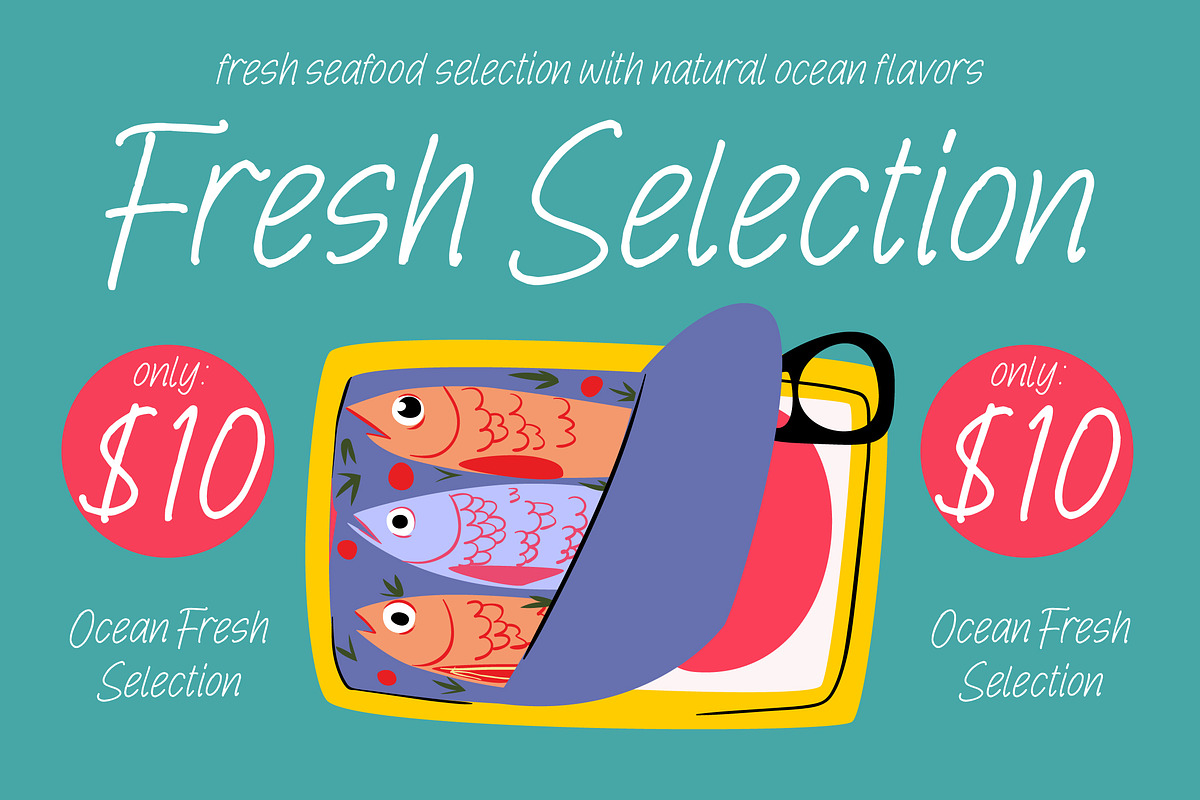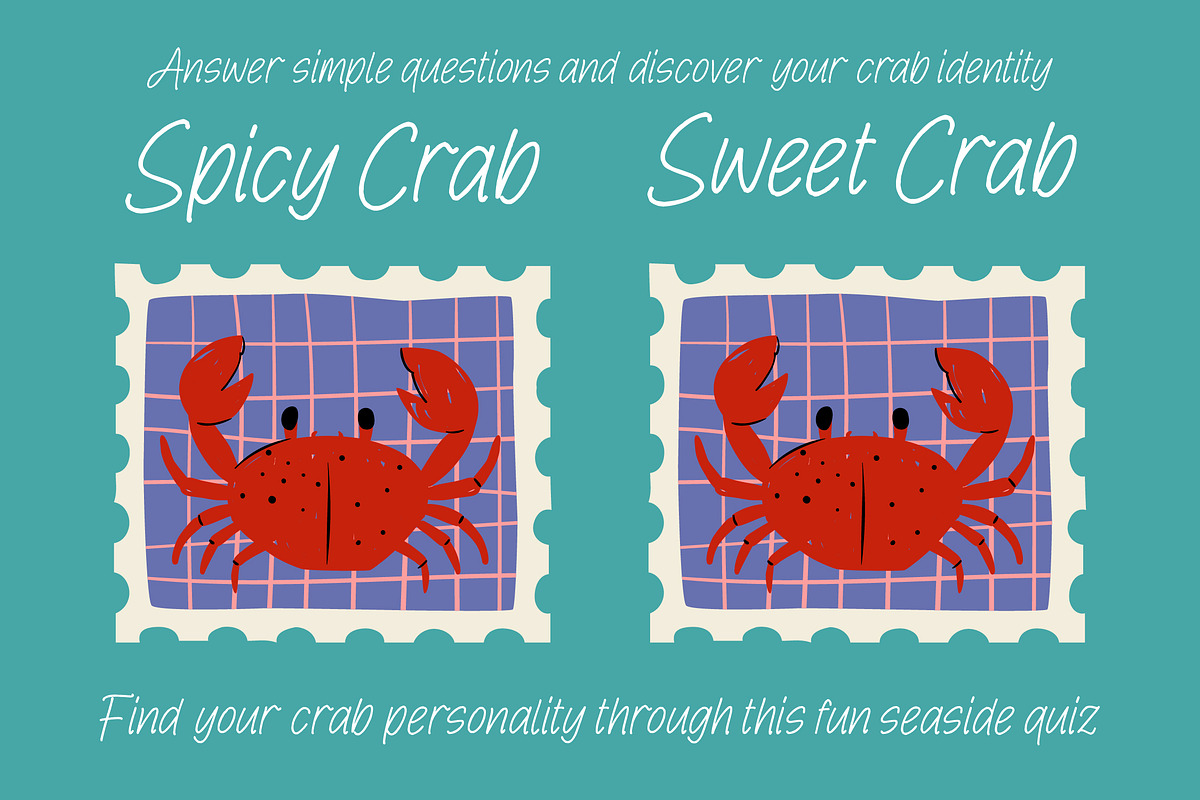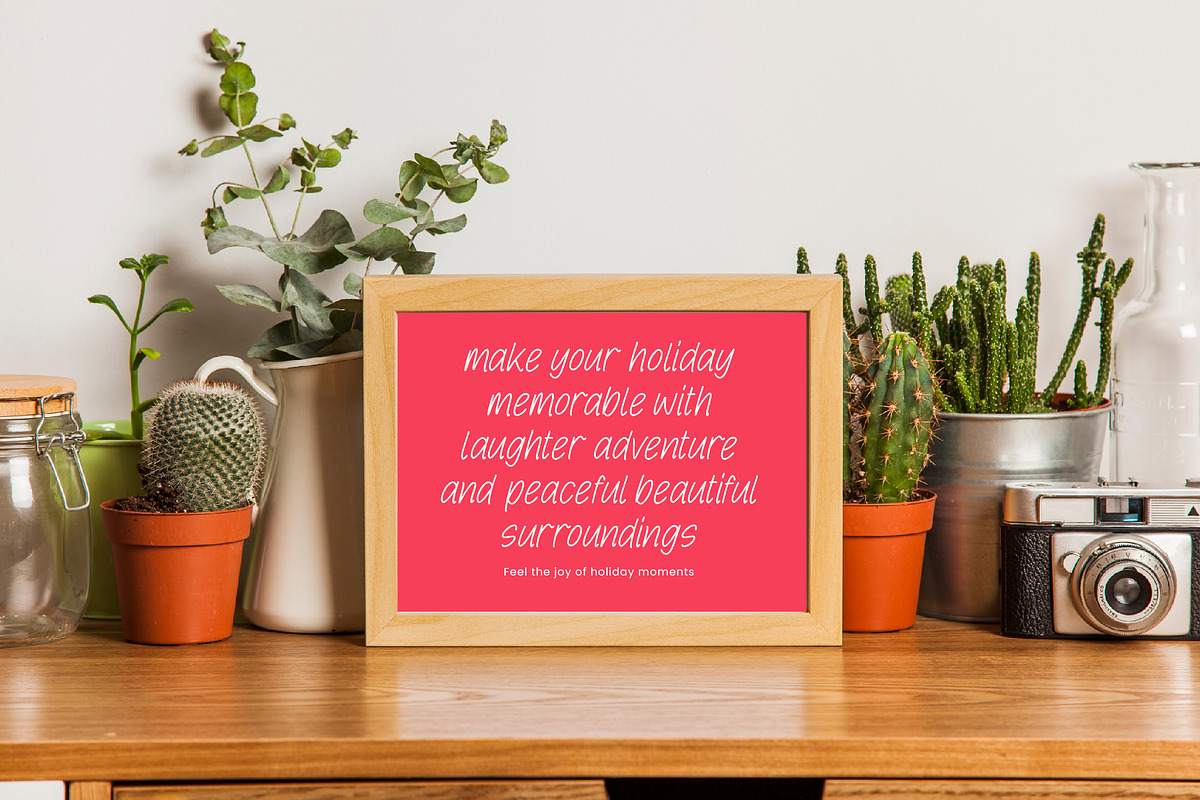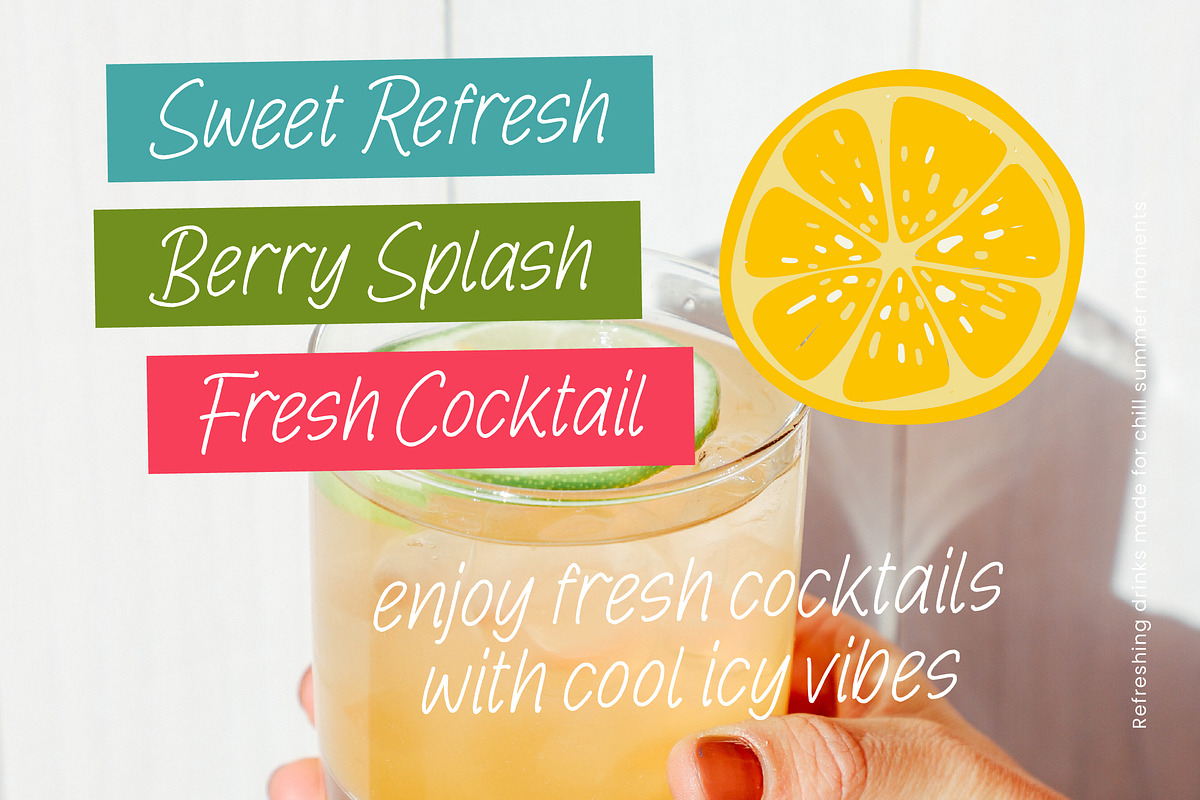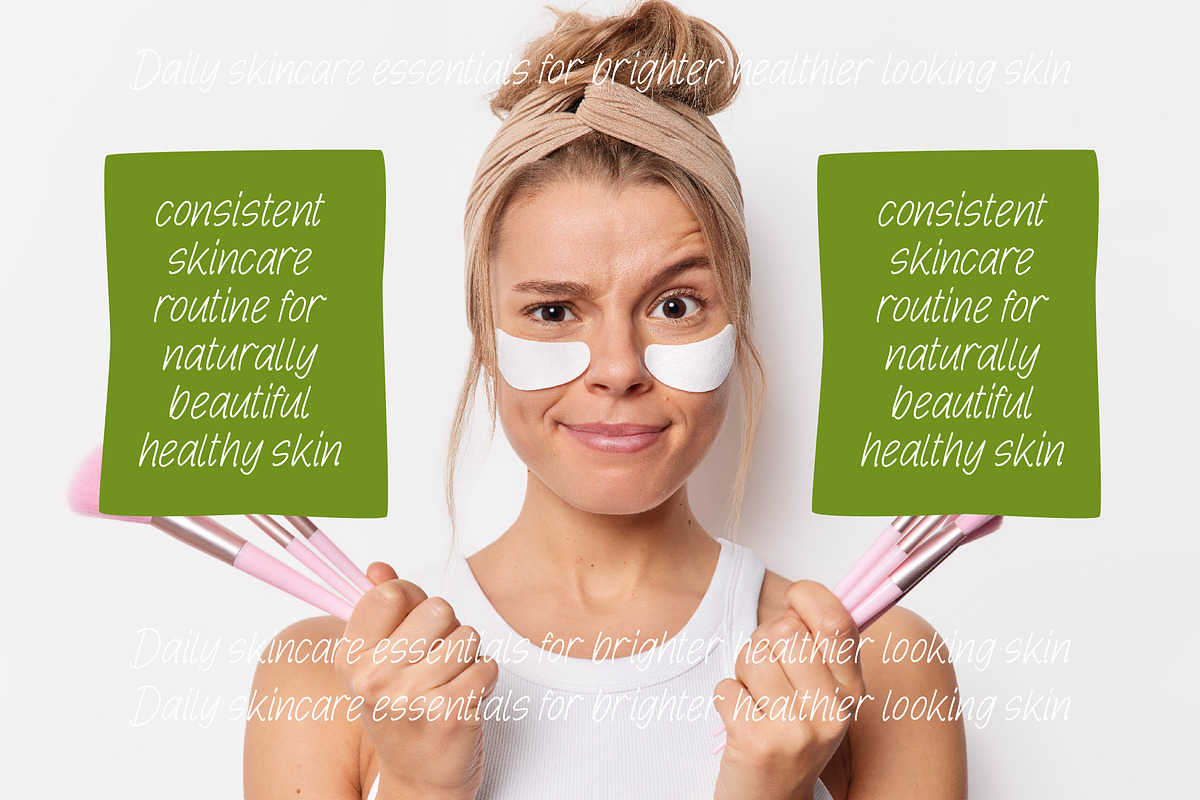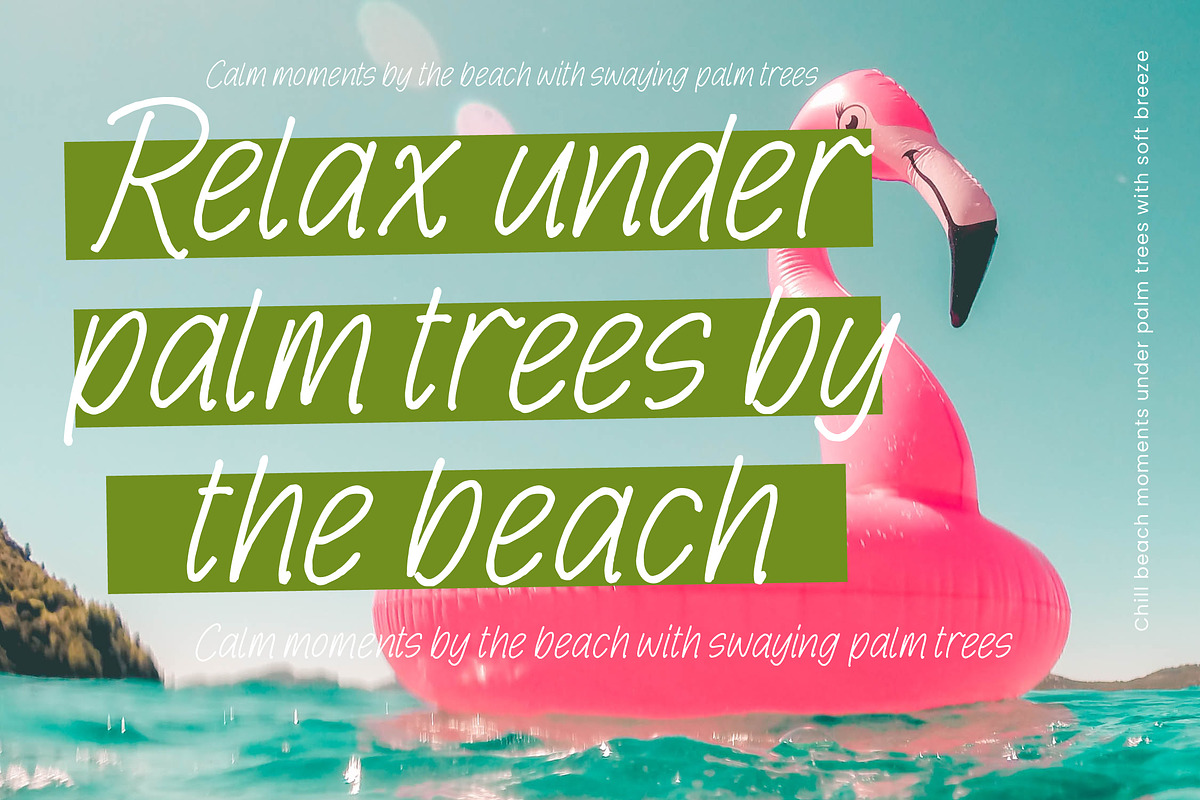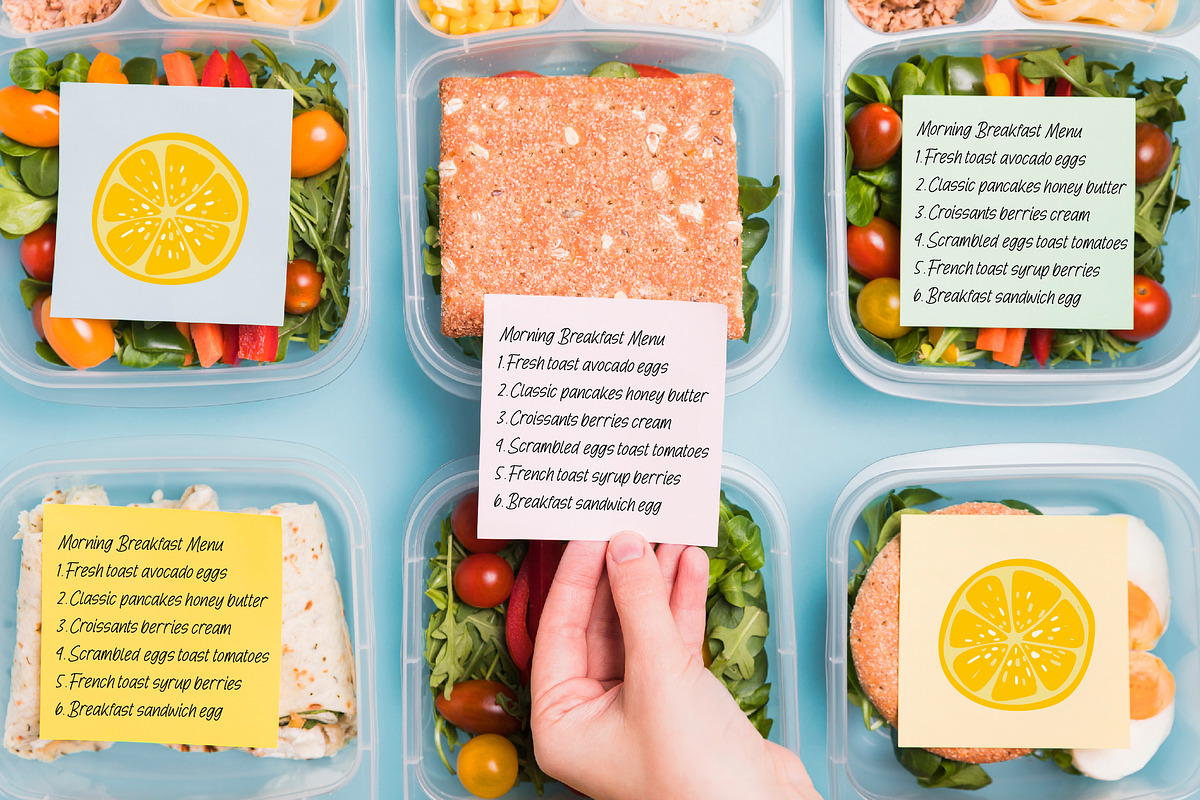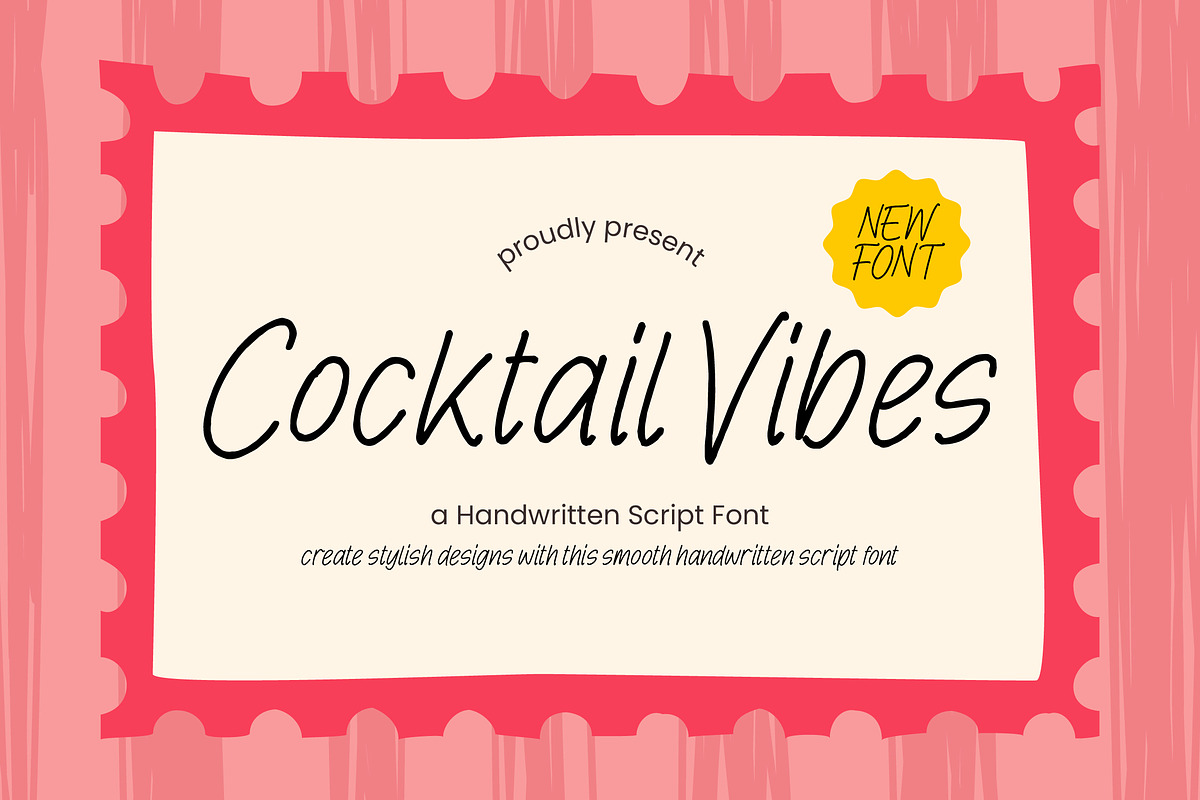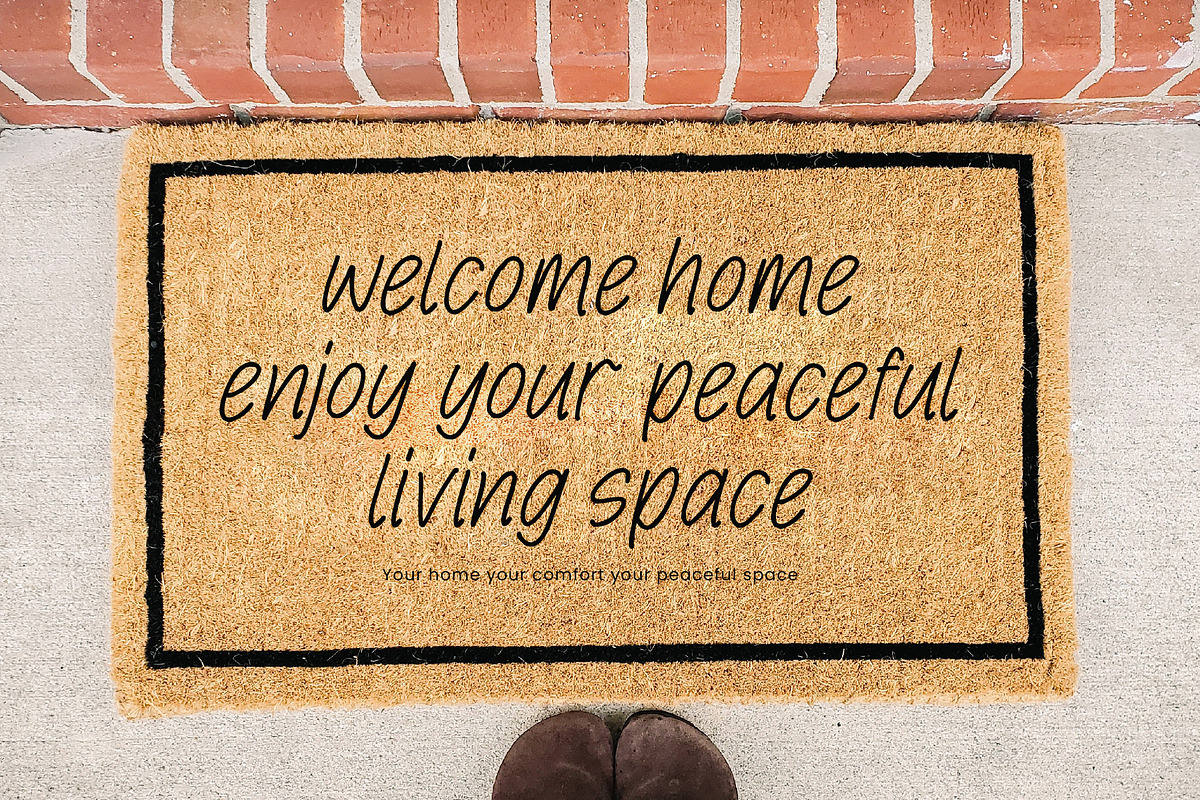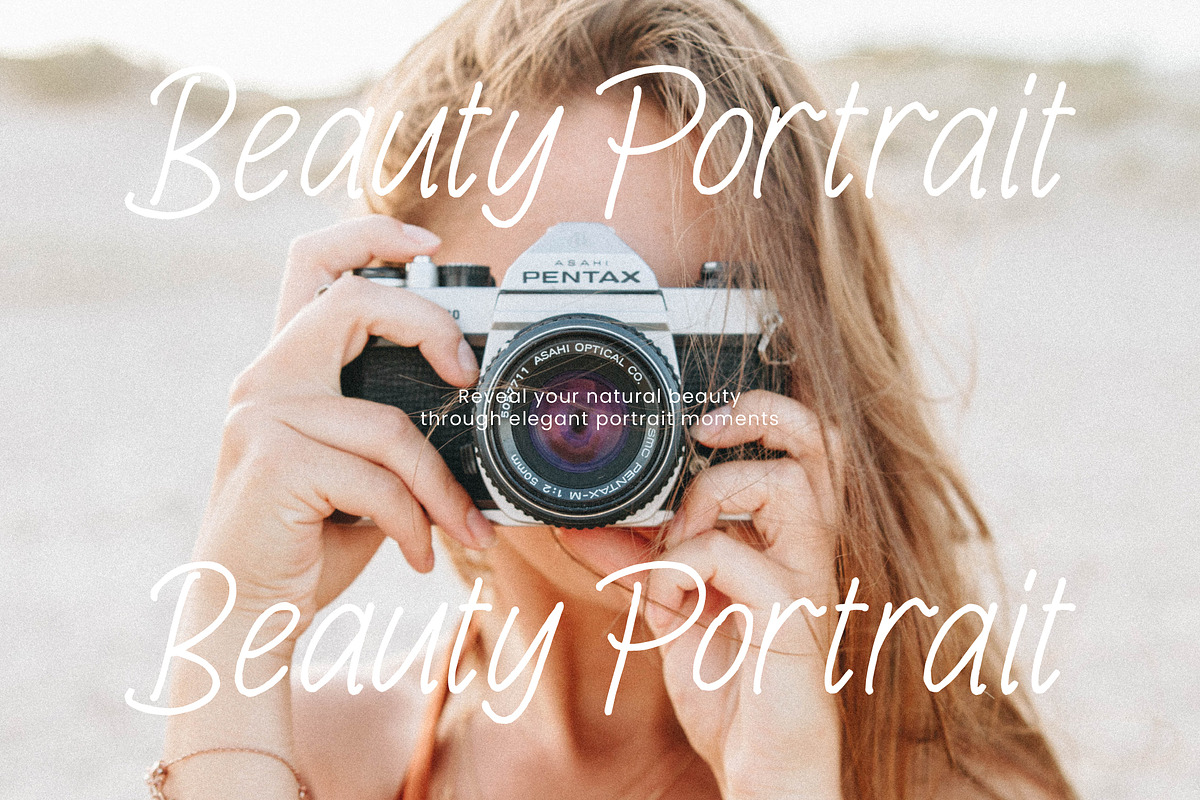
Cocktail Vibes Handwritten Script
Cocktail Vibes – Handwritten Script Font
Cocktail Vibes is a smooth and stylish handwritten script font that delivers a relaxed yet elegant feel. Its flowing curves and natural rhythm make it perfect for creating warm and inviting designs.
Great for branding, invitations, packaging, quotes, social media, and lifestyle projects that need a modern handwritten touch.